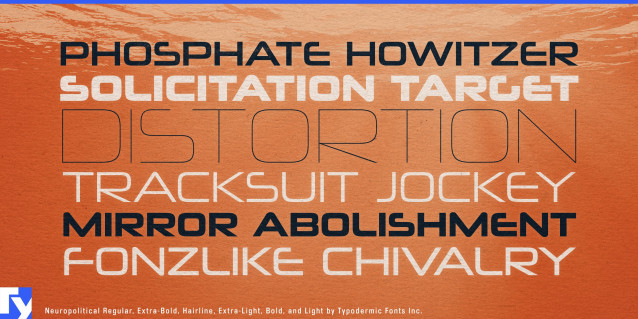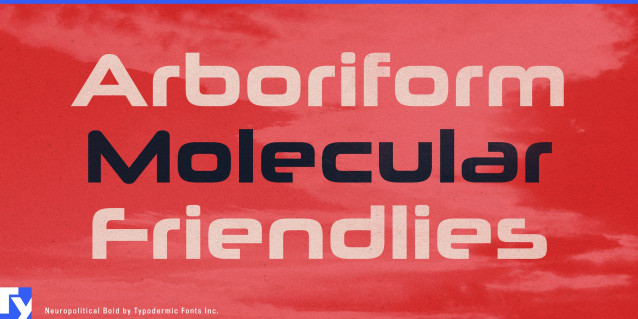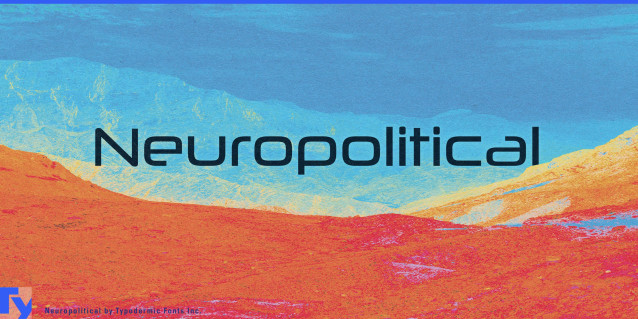
Technology products often get trapped between two typographic extremes. Rounded geometric faces can make advanced hardware feel soft, nostalgic, or conspicuously Y2K; aggressive futuristic lettering can make a real product look like a prop. Neuropolitical sits between them. Its broad square construction and flat terminals keep the technological signal obvious, while the forms remain restrained enough for equipment that already exists rather than a future somebody is trying to imagine.
That makes Neuropolitical particularly useful for robotics and autonomous systems. Warehouse robots, inspection platforms, agricultural robotics, delivery hardware, drones, machine-vision systems, robotic arms, and service robots all need names, model hierarchies, and launch graphics that communicate technology without slipping into science fiction. Neuropolitical can carry robot model names, product-series lettering, enclosure graphics, decals, demonstration-area signage, trade-show walls, training headings, and promotional video titles.
Neuropolitical combines rounded-square construction with open technical details for an approachable product voice. It works for consumer devices, connected fitness, home energy, robotics, interfaces, medical technology, mobility systems, packaging, and model names that should feel advanced but not militarized.